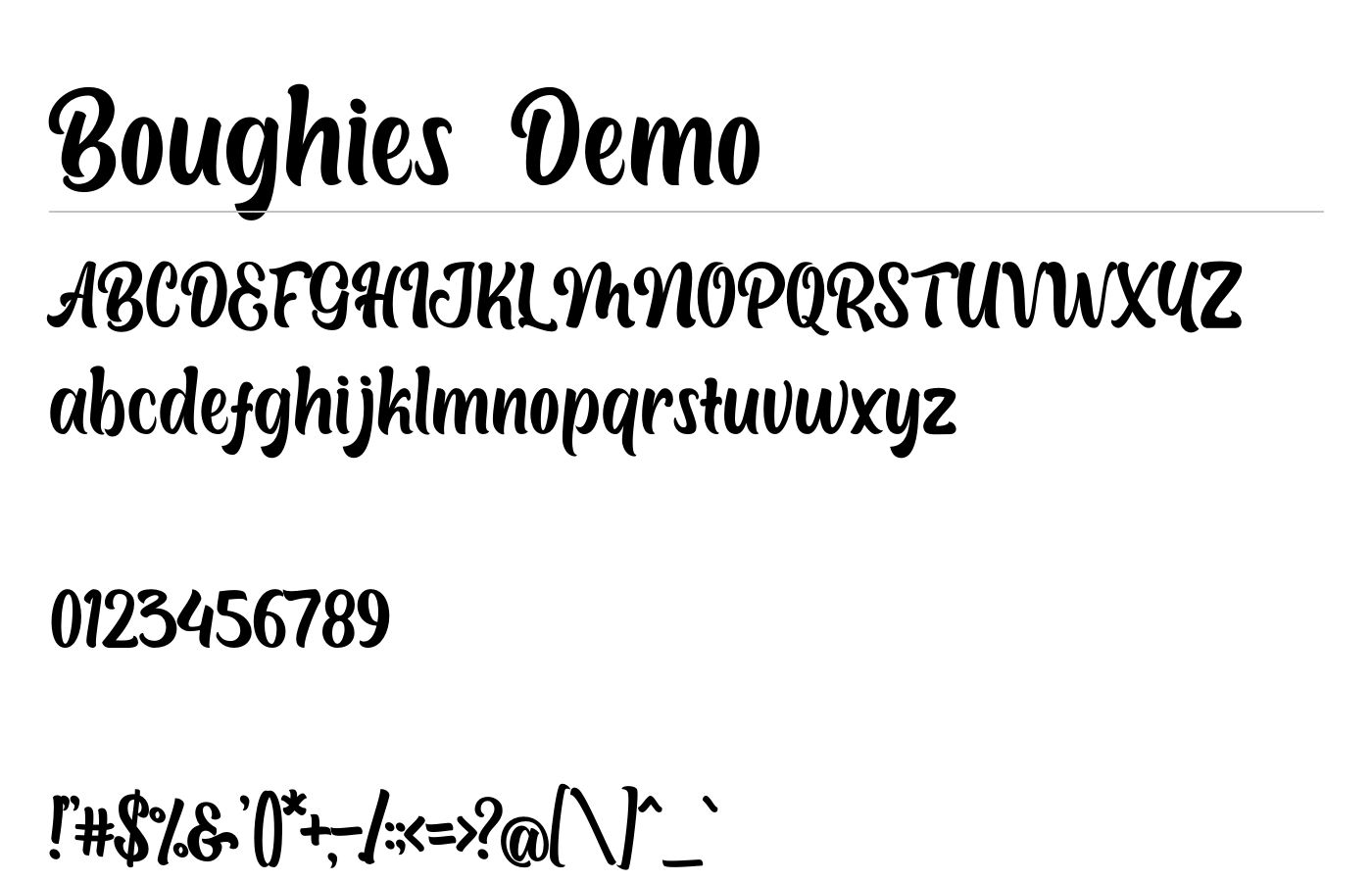
Boughies is a lively script font with a bold, playful style and smooth, rounded strokes that give it a friendly and approachable feel. Its moderately high x-height and casual letterforms make it ideal for eye-catching headlines, branding, and packaging that want to convey warmth and personality. This font works especially well for creative projects that need a fun yet readable touch.
Boughies Font
About Boughies Font
| Font family | Boughies Font |